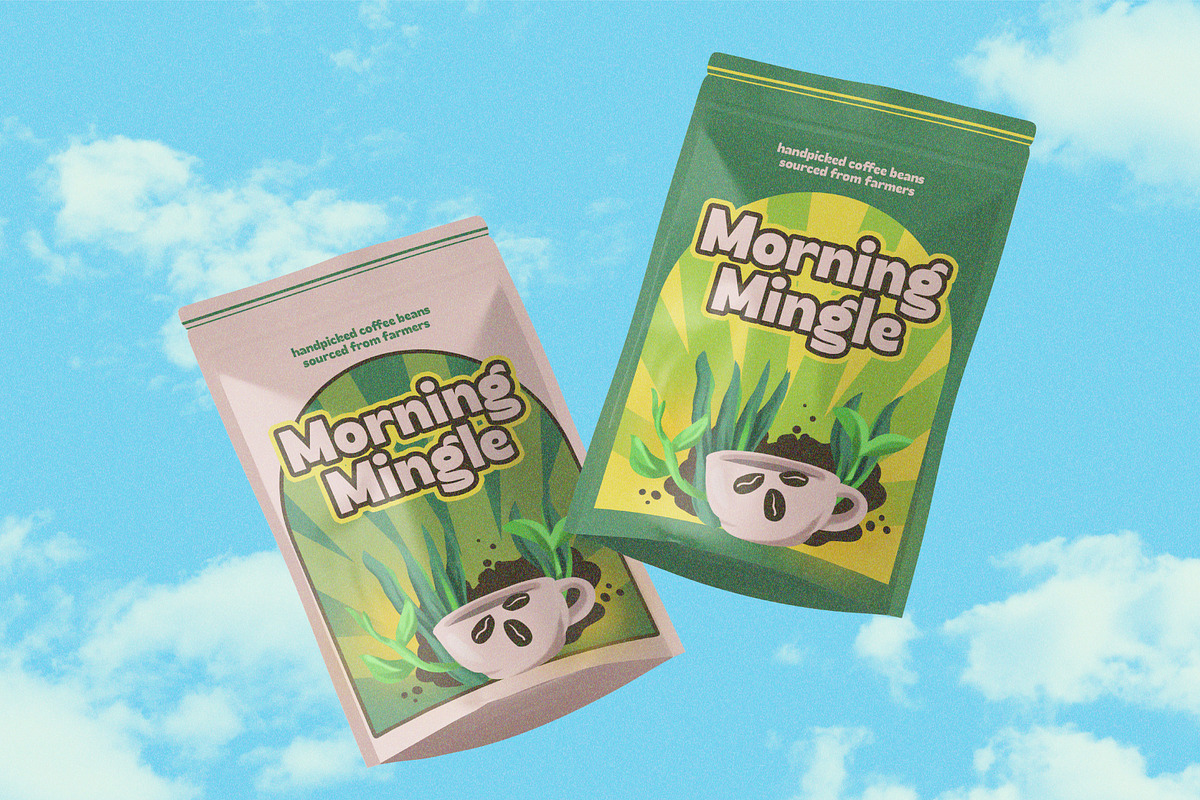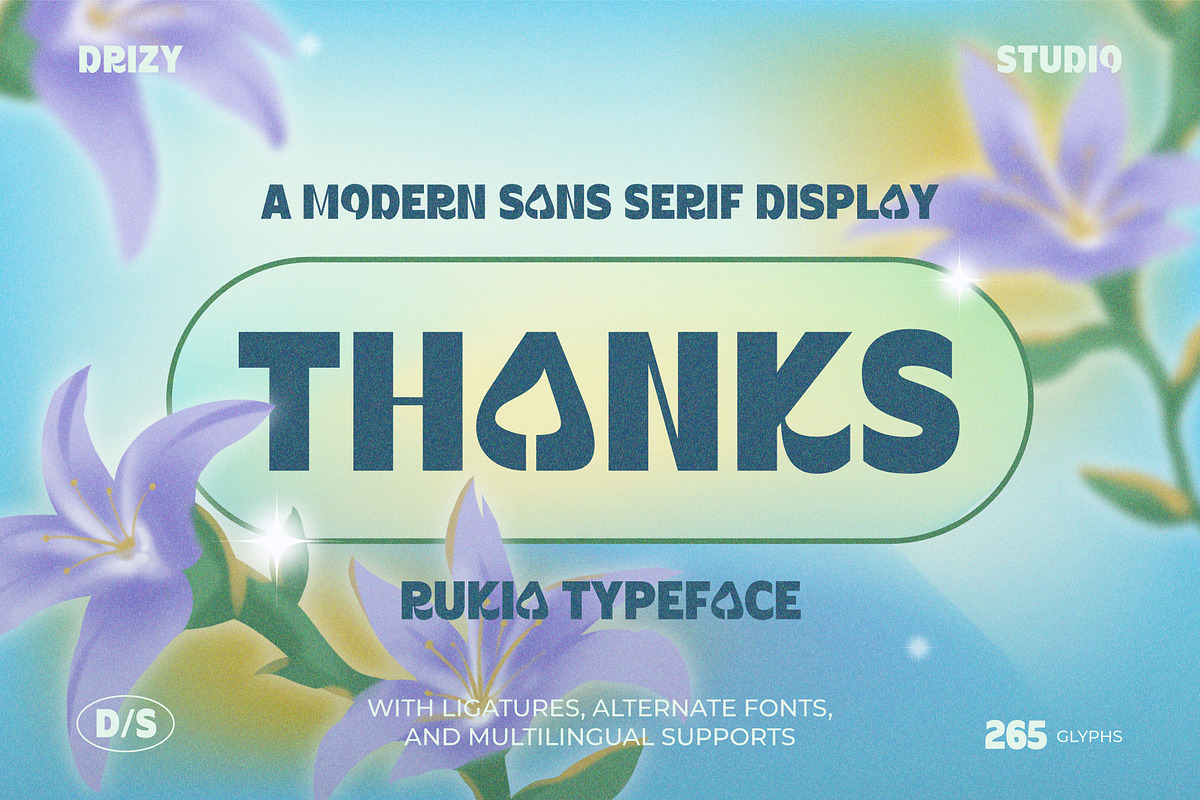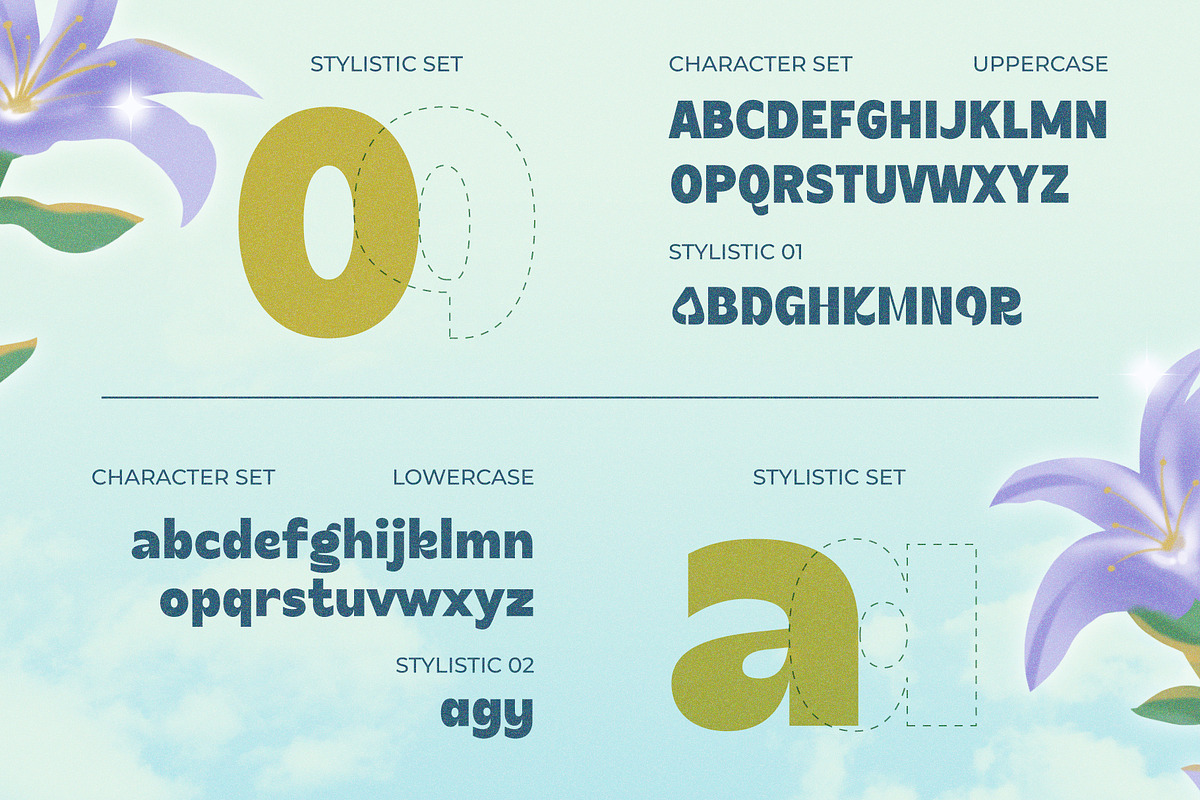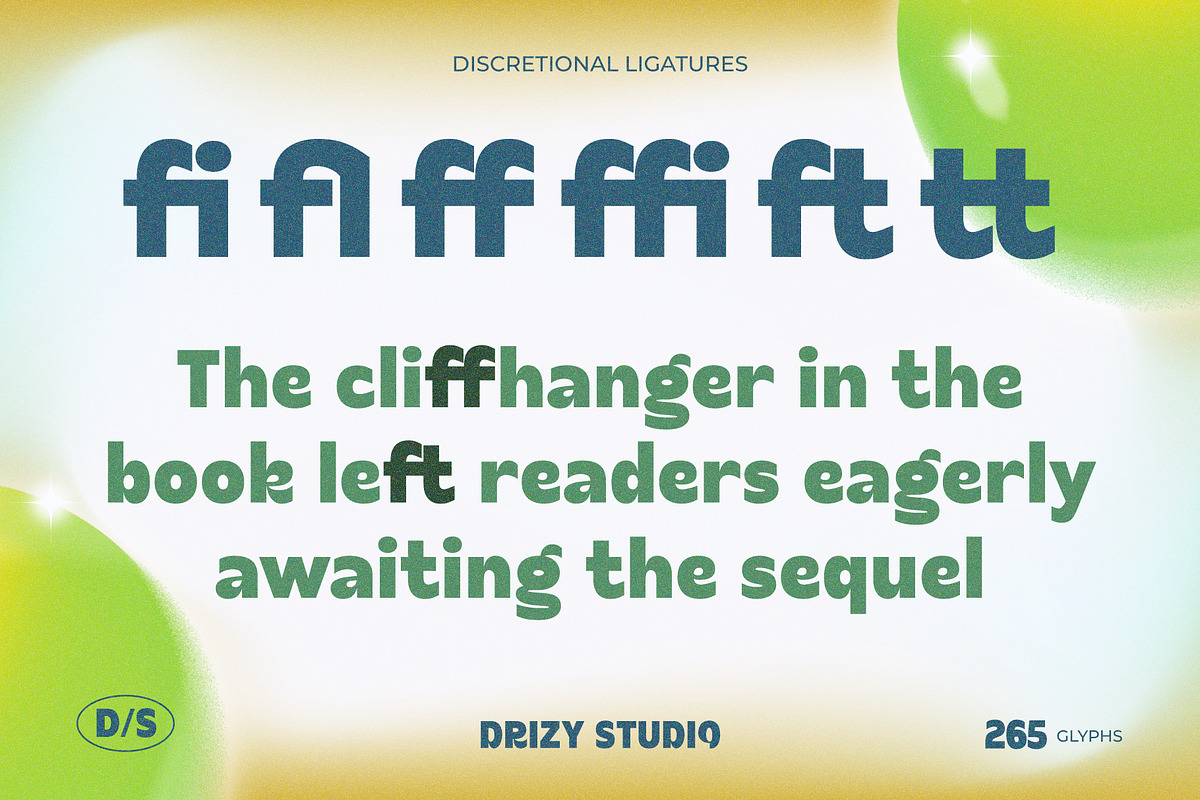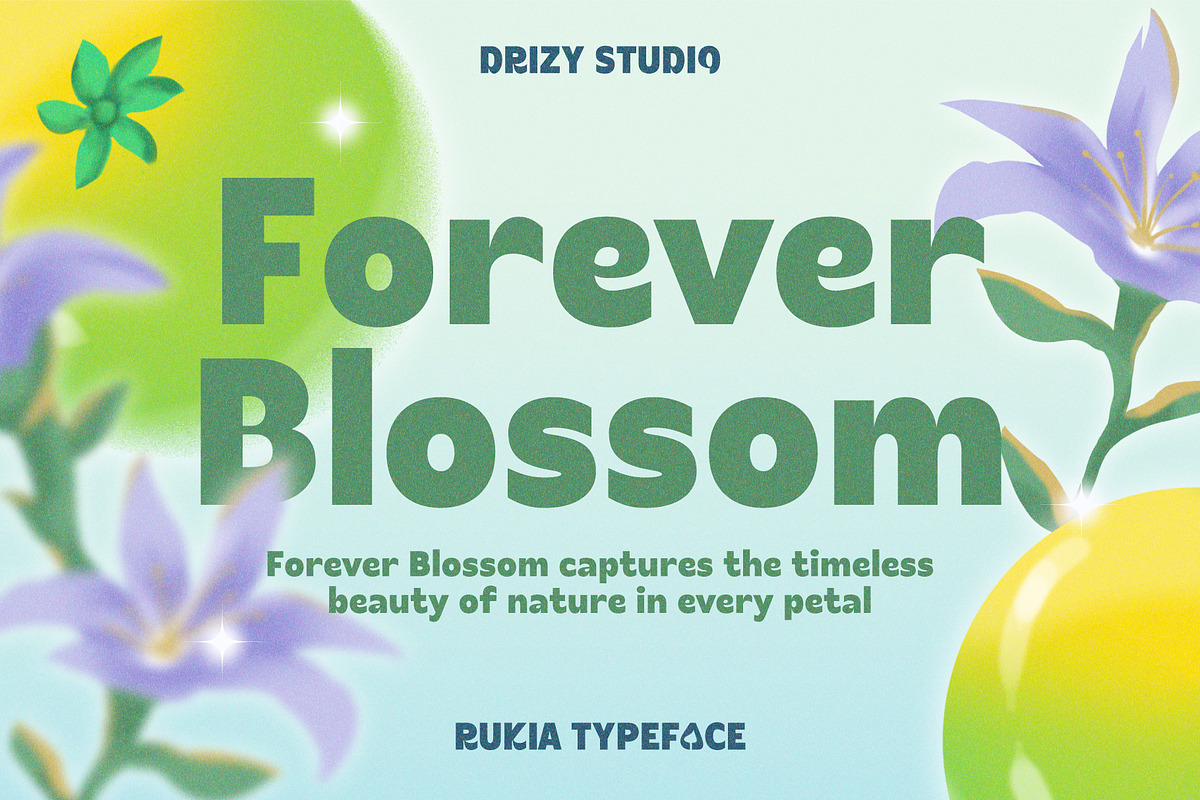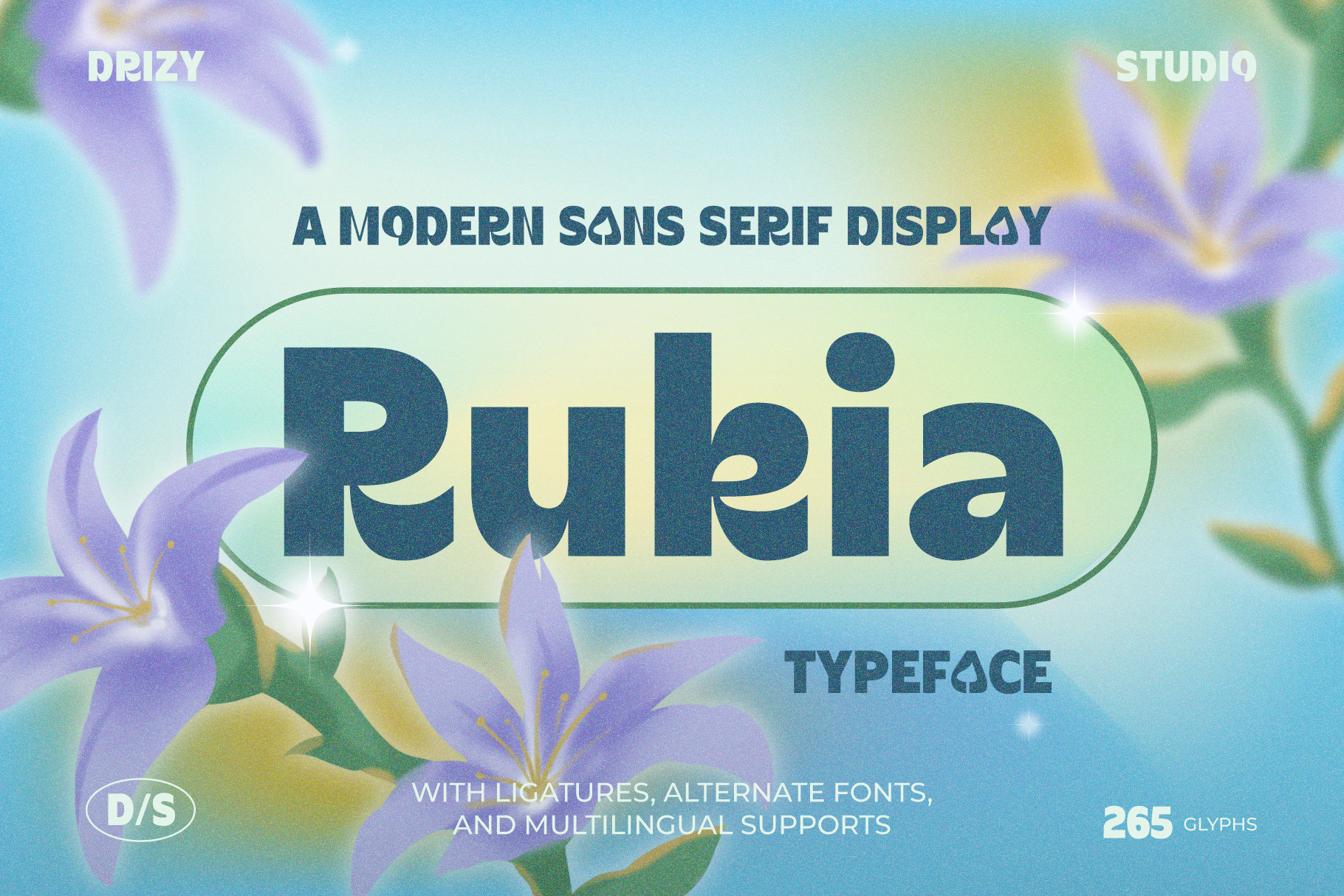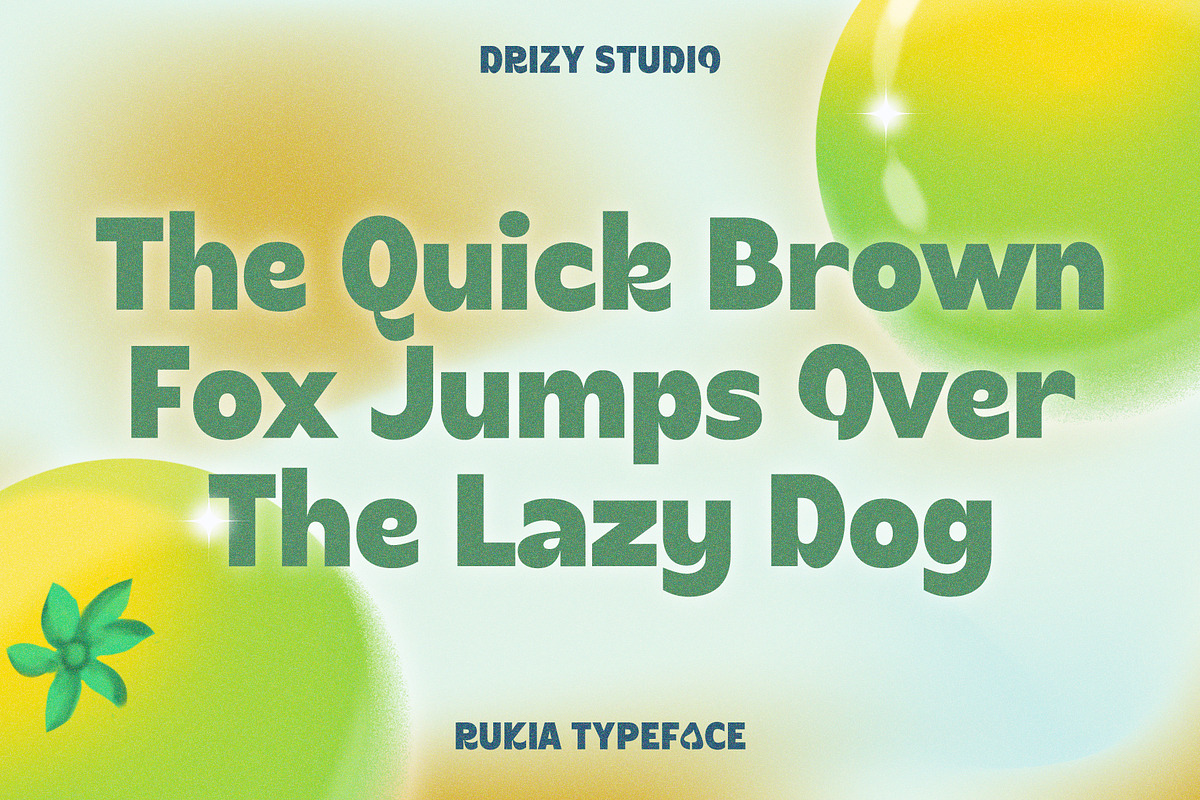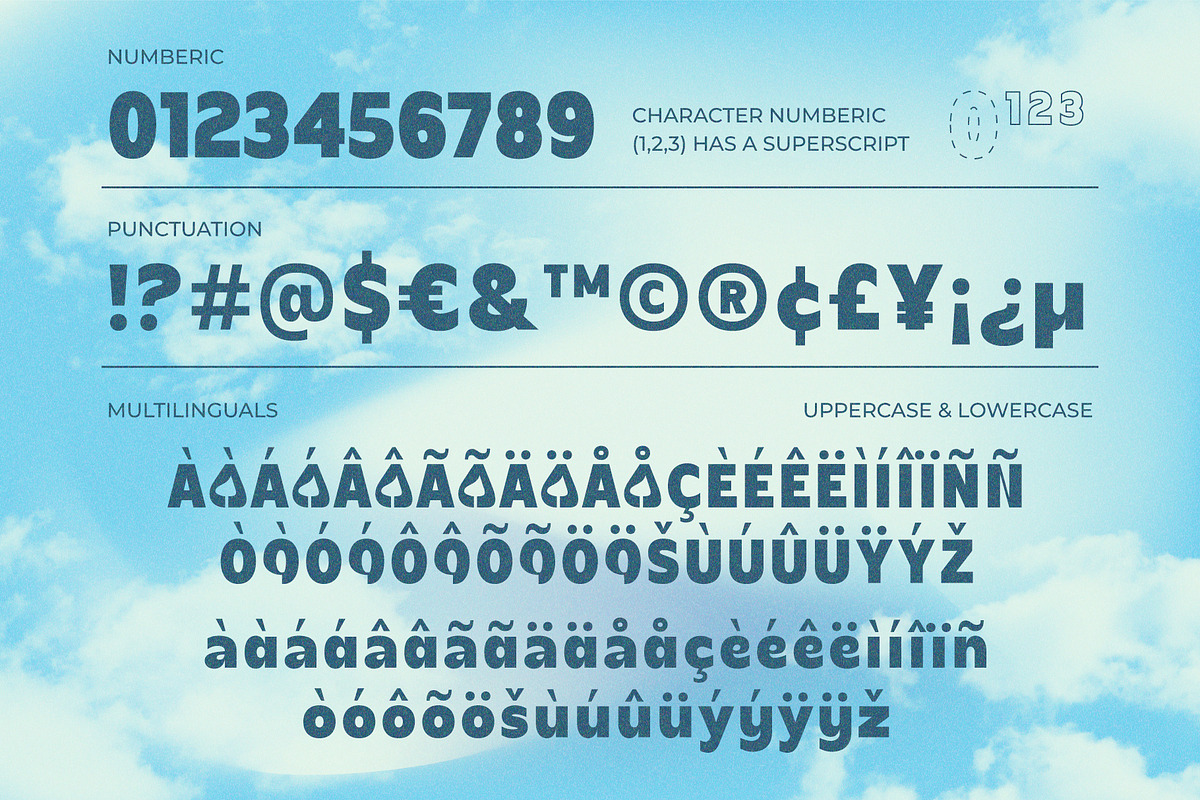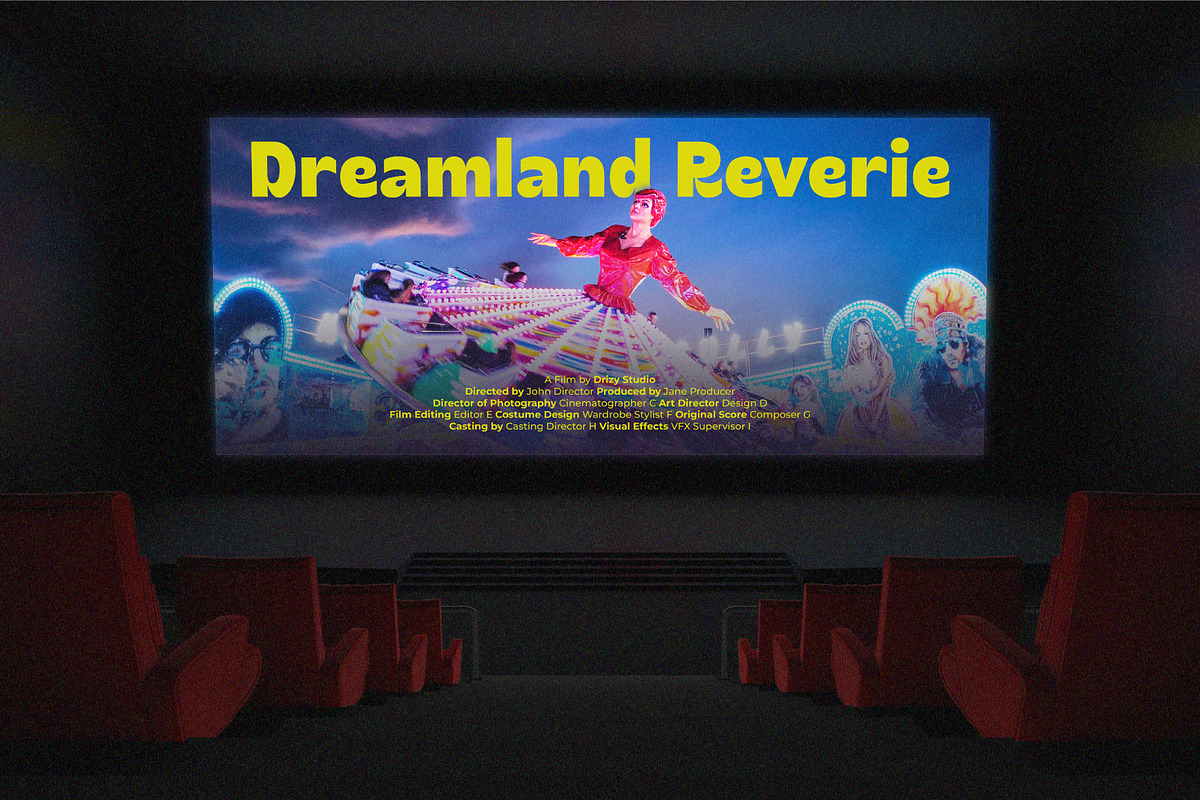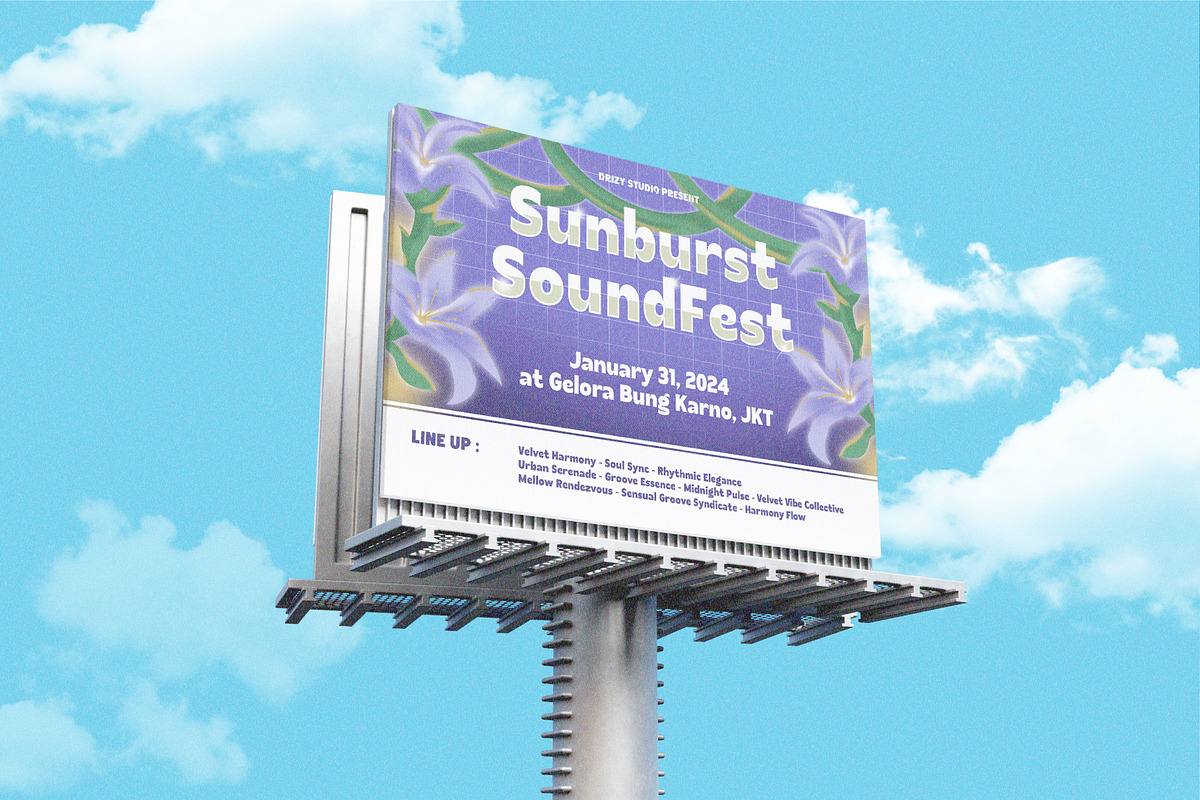
Rukia - Modern Sans Serif Font
Introducing Rukia, a vibrant and energetic Japanese Pop Culture Sans Serif font that effortlessly blends tradition with contemporary flair. Inspired by the dynamic world of Japanese pop culture, Rukia brings a burst of excitement to your creative projects, making it the perfect choice for designs that celebrate the fusion of tradition and modernity.
Rukia features: Uppercase & Lowercase Stylistic Set Punctuation & Numbers Multilingual Ligatures Alternates
Elevate and explore the design possibilities with this Japanese Pop Culture font!